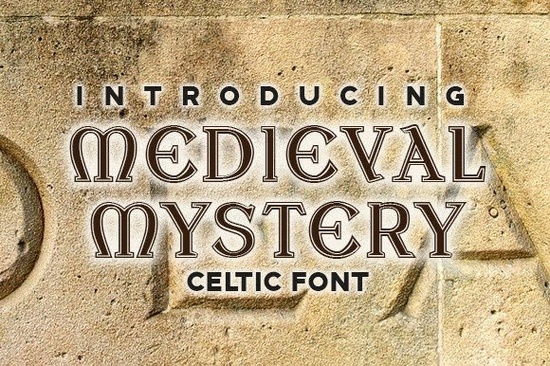
If you're working on a project that calls for old-world gravitas think fantasy book covers, tavern signage, or gothic wedding invitations you’ve probably searched for a font that feels both historic and bold. That’s where Medieval Mystery Font comes in. This blackletter-style typeface blends thick, dramatic strokes with subtle Celtic flourishes, giving your designs an authentic medieval presence without looking overly ornate or hard to read.
Unlike some blackletter fonts that lean too heavily into complexity, Medieval Mystery strikes a balance. Its letterforms are sturdy and legible at larger sizes, making it practical for everything from printable wall art to branding for craft beer labels or RPG character sheets. The weight of the strokes adds instant visual impact, so even a short phrase can anchor a composition.
What makes this font different from other blackletter styles?
Blackletter fonts often fall into two camps: ultra-traditional (like those used in 15th-century manuscripts) or highly stylized modern interpretations. Medieval Mystery sits comfortably in between. It keeps the angular structure and dense texture typical of Gothic scripts but softens the edges just enough to feel approachable. You’ll also notice delicate knotwork-inspired details especially in the capital letters that nod to Celtic design without overwhelming the core letter shape.
Who should use Medieval Mystery Font?
This font shines for creators who need strong typographic presence with historical flavor:
- Print-on-demand sellers designing t-shirts, mugs, or posters with fantasy, Viking, or Renaissance themes.
- Small business owners crafting logos for breweries, bakeries, or boutiques wanting a “timeless” or “heritage” vibe.
- Crafters and hobbyists making handmade greeting cards, scrapbook elements, or wood-burned signs.
- Indie authors and game designers needing chapter headers, map labels, or spellbook typography that feels immersive.
It’s worth noting that blackletter fonts like this one work best as display type meaning they’re ideal for headlines, titles, or short phrases rather than body text. Their intricate forms can become hard to read in long paragraphs, especially at smaller sizes.
How to pair it effectively
Because Medieval Mystery is so visually dominant, pairing it with a clean, neutral sans-serif often works best. Think fonts like Montserrat, Lato, or even a simple Helvetica clone. This contrast keeps your layout balanced: the blackletter grabs attention up top, while the supporting text remains easy to scan.
Avoid pairing it with other decorative or script fonts unless you’re going for an intentionally maximalist look (and even then, use restraint). For color, deep tones like forest green, burgundy, charcoal, or aged parchment white enhance its medieval mood without clashing.
Practical uses beyond digital design
Don’t limit this font to screens. Its bold lines translate beautifully to physical media:
- Engraving or laser cutting: The thick strokes hold up well when carved into wood or acrylic.
- Foil stamping: Looks striking on dark paper with gold or silver foil.
- Stenciling: Great for painting quotes onto walls, crates, or fabric banners.
- Embroidery digitizing: With minor simplification, it can work as a monogram or patch design.
Just remember to test readability at your final size what looks crisp on a poster might blur when shrunk to a 1-inch tag.
Before you download, ask yourself:
- Is my project calling for drama, history, or mystique?
- Will this be used for short text only (under 10 words)?
- Do I have a clean secondary font ready to balance it?
If yes to all three, Medieval Mystery Font is likely a strong fit. It’s not a “one-size-fits-all” typeface but for the right project, it adds instant atmosphere with minimal effort.